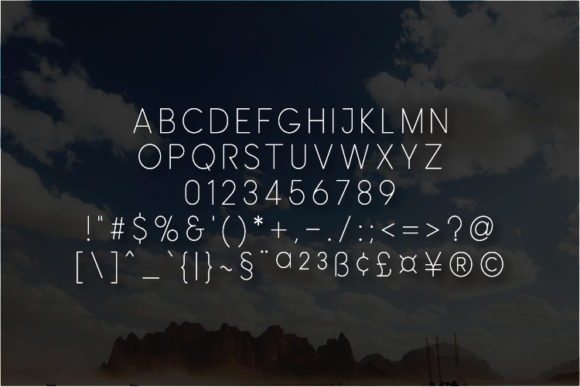
Introducing Domonica Font: The Ultimate Sans Serif for Modern Designs
Are you tired of using the same old fonts in your designs? Look no further than Domonica Font, a simple and casual sans serif font that’s taking the design world by storm. With its undeniably clean feel and beautiful arrangement of letters, Domonica is the perfect choice for both formal and non-formal designs.
What Makes Domonica Font So Special?
Domonica Font is a game-changer for designers and crafters alike. Its simplicity and cleanliness make it an excellent choice for a wide range of projects, from brochures and posters to digital media and websites. The font’s neat and organized arrangement of letters creates a beautiful visual flow that’s sure to capture your audience’s attention.
Key Features of Domonica Font
- Simple and Casual: Domonica Font has a relaxed, approachable vibe that’s perfect for modern designs.
- Clean and Neat: The font’s clean lines and organized letter arrangement create a beautiful visual flow.
- Sans Serif: Domonica Font features a sans serif design that’s both elegant and versatile.
- Formal and Non-Formal: This font is suitable for both formal and non-formal designs, making it a great addition to any designer’s toolkit.
Why Choose Domonica Font?
There are many reasons why Domonica Font stands out from the crowd. Here are just a few:
- Legibility: Domonica Font is incredibly legible, even at small sizes, making it perfect for body text and captions.
- Versatility: This font is suitable for a wide range of projects, from print materials to digital media.
- Ease of Use: Domonica Font is easy to use and pairs well with a variety of other fonts, making it a great choice for designers of all levels.
How to Use Domonica Font in Your Designs
Domonica Font is incredibly versatile and can be used in a variety of ways. Here are a few ideas to get you started:
- Headings and Titles: Use Domonica Font as a heading or title font to add a touch of modernity to your designs.
- Body Text: Domonica Font’s legibility makes it an excellent choice for body text, especially for digital media.
- Captions and Quotes: Use Domonica Font to add captions and quotes to your designs, adding a touch of elegance and sophistication.
Tips and Tricks for Getting the Most Out of Domonica Font
Here are a few tips and tricks to help you get the most out of Domonica Font:
- Pair with Other Fonts: Experiment with pairing Domonica Font with other fonts to create a unique and visually appealing design.
- Experiment with Sizes: Don’t be afraid to experiment with different font sizes to create visual interest and hierarchy in your designs.
- Use in Combination with Images: Domonica Font pairs well with images, making it a great choice for designs that feature photography or illustrations.
Domonica Font is a game-changer for designers and crafters alike. Its simplicity, cleanliness, and versatility make it an excellent choice for a wide range of projects. Whether you’re working on a formal or non-formal design, Domonica Font is sure to elevate your work and leave a lasting impression on your audience.